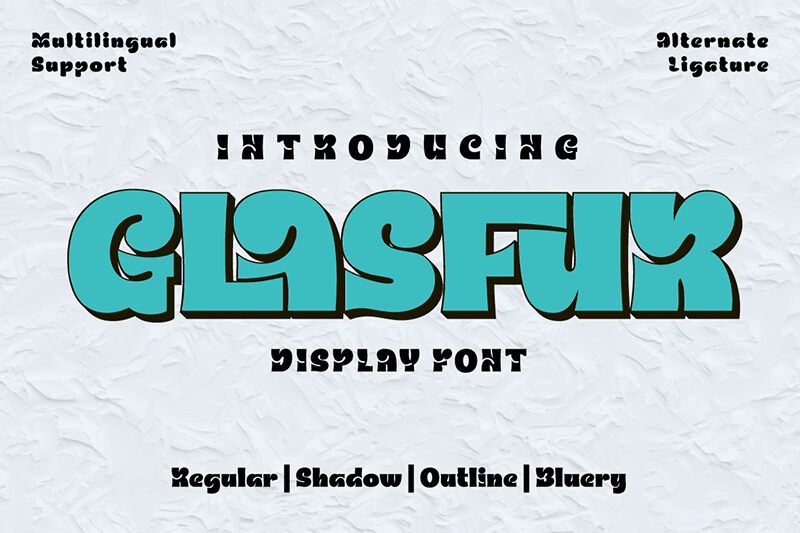
GLASFUR Trial Regular
Glasfur font by Twinletter is a bold display font with expressive soft contours and a retro-inspired style. With its vintage charm and attention-grabbing letters, this condensed font carries a bold personality to bring an elegant yet unique twist to any creative project.